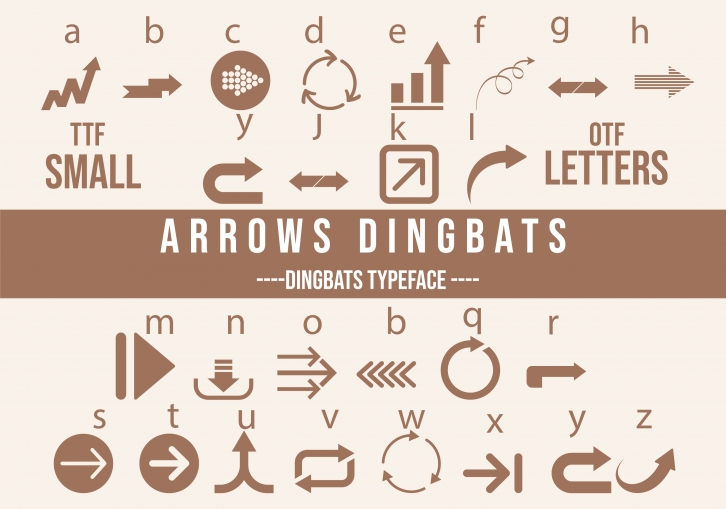
Arrows dingbats is a fun and useful dingbats font, and it is a must to have in your font library. It lets you easily create 62 different arrows to fit any design need you might have!